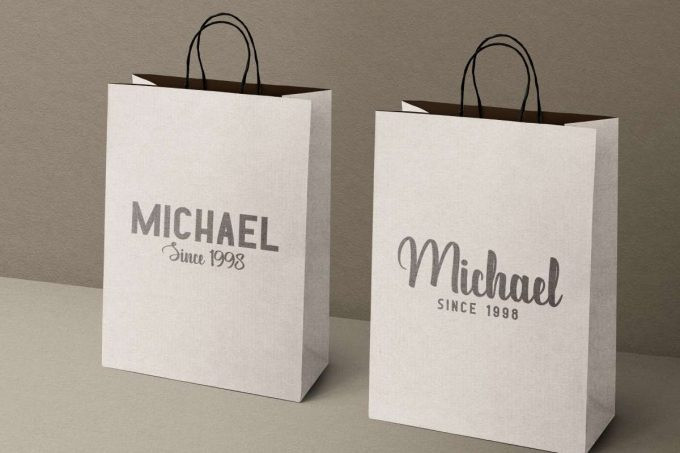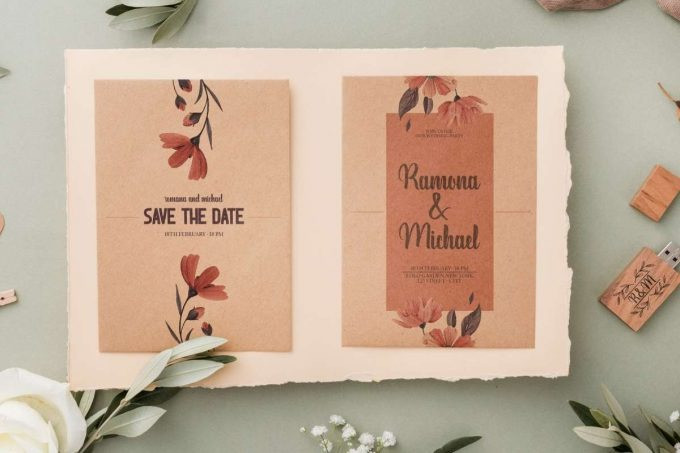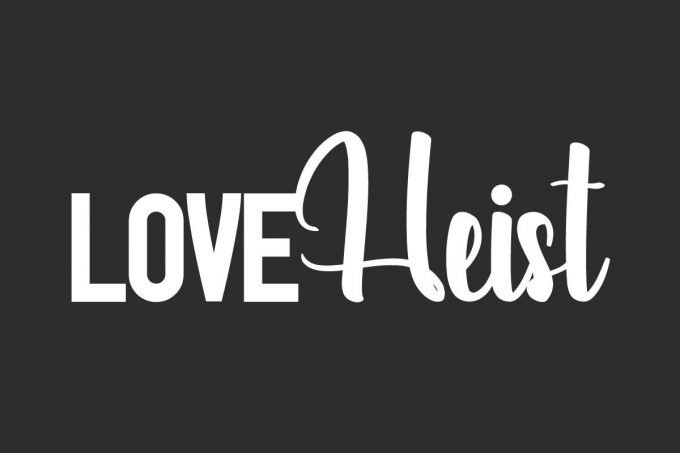
Love Heist Font
Love Heist Font is a font family with two different styles: sans serif display and script font. This font is carefully crafted in each letter so we can make sure it looks good, bring natural handwriting and perfect basic letters. Carefully designed to work together in harmony. This one should make your designs instantly professional and jaw-dropping!
Love Heist Font includes full set of Uppercase and Lowercase Basic Characters, Numerals and Punctuation. For sans serif, ALL CAPS with different sizes between uppercase and lowercase letters. Also it contains ligatures on script letters, to make it flowless characters to perfectly make awesome look that add more aesthetic fonts to perfect your extraordinary project. Love Heist will be great for fashion, kids, makeup, school, wedding etc
This font is perfect for many projects, branding design, headings, lettering, logos, products packaging, screen printing, signage, stationery, quotes, webpage and more! Be a perfect professional in a minute and start creating today!